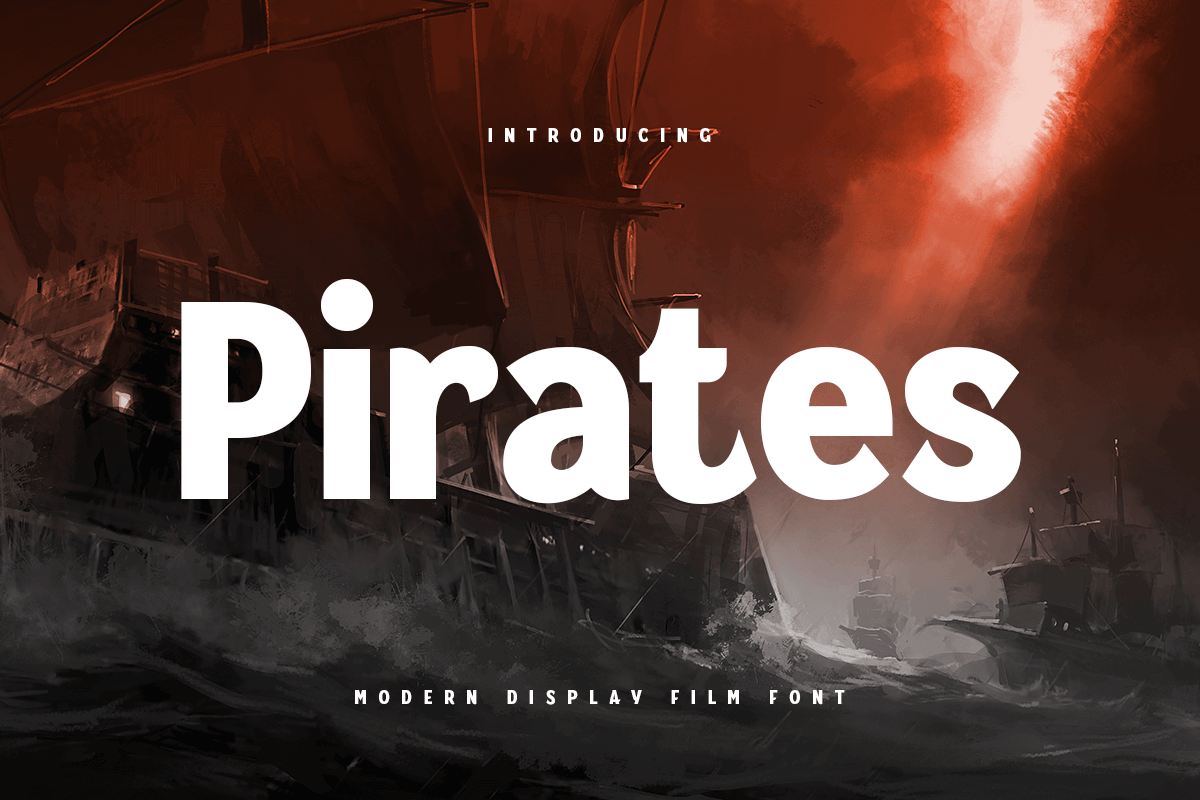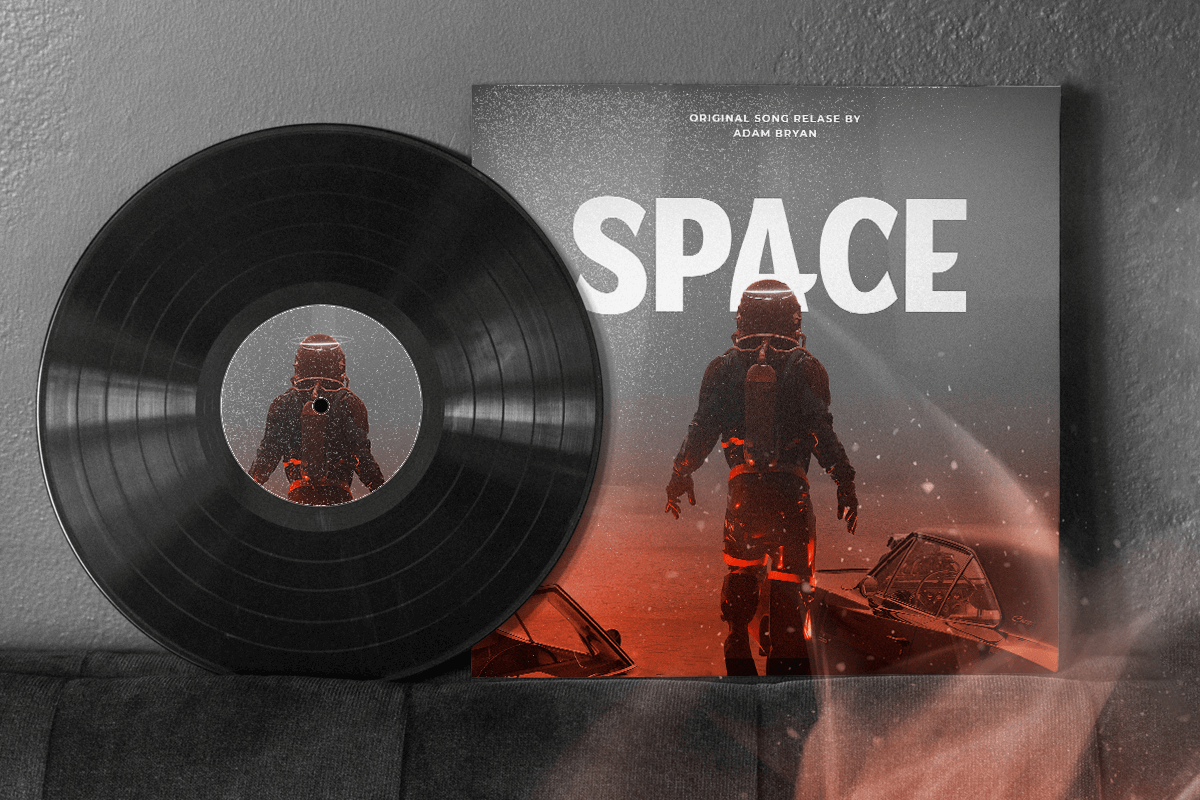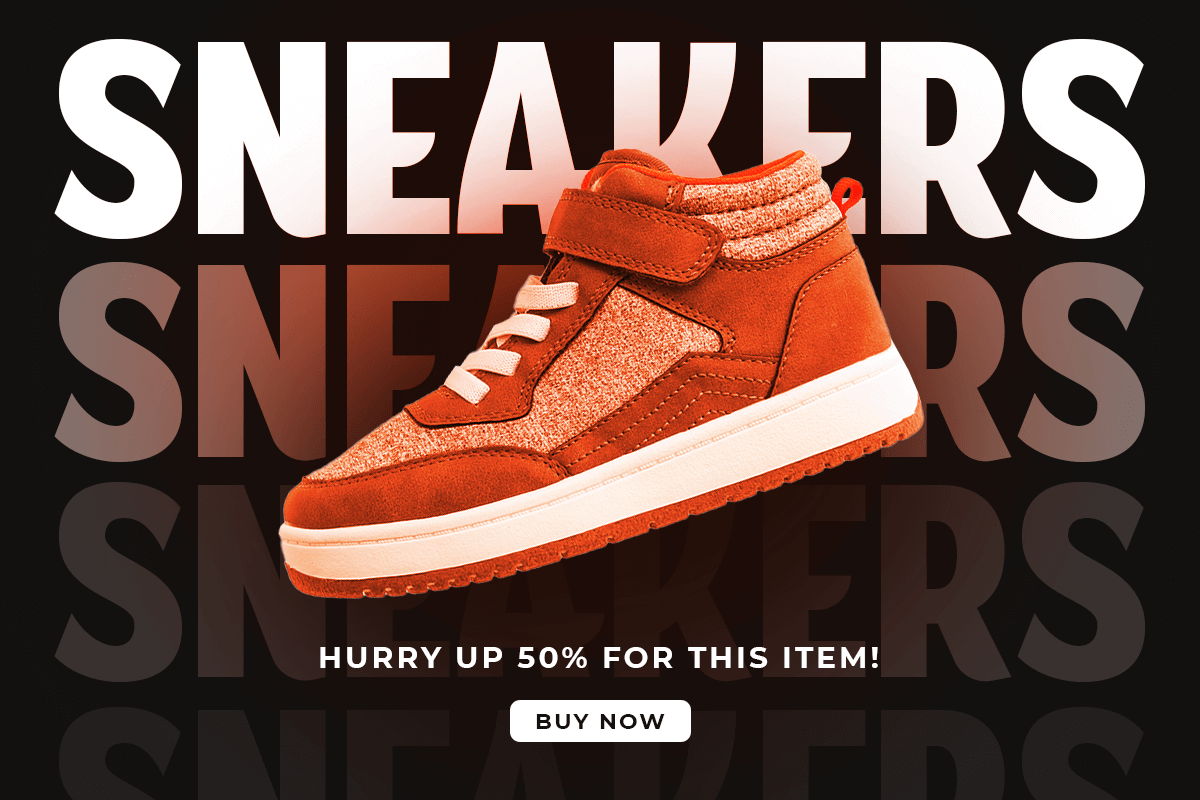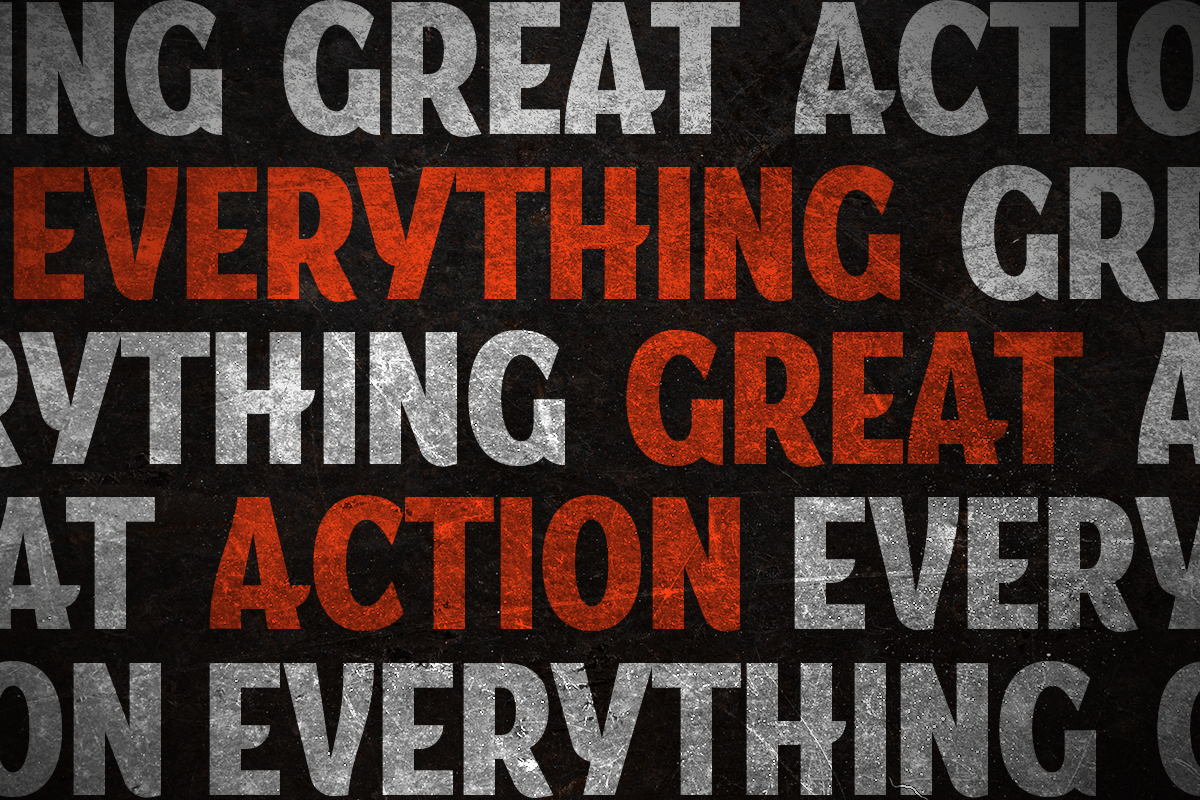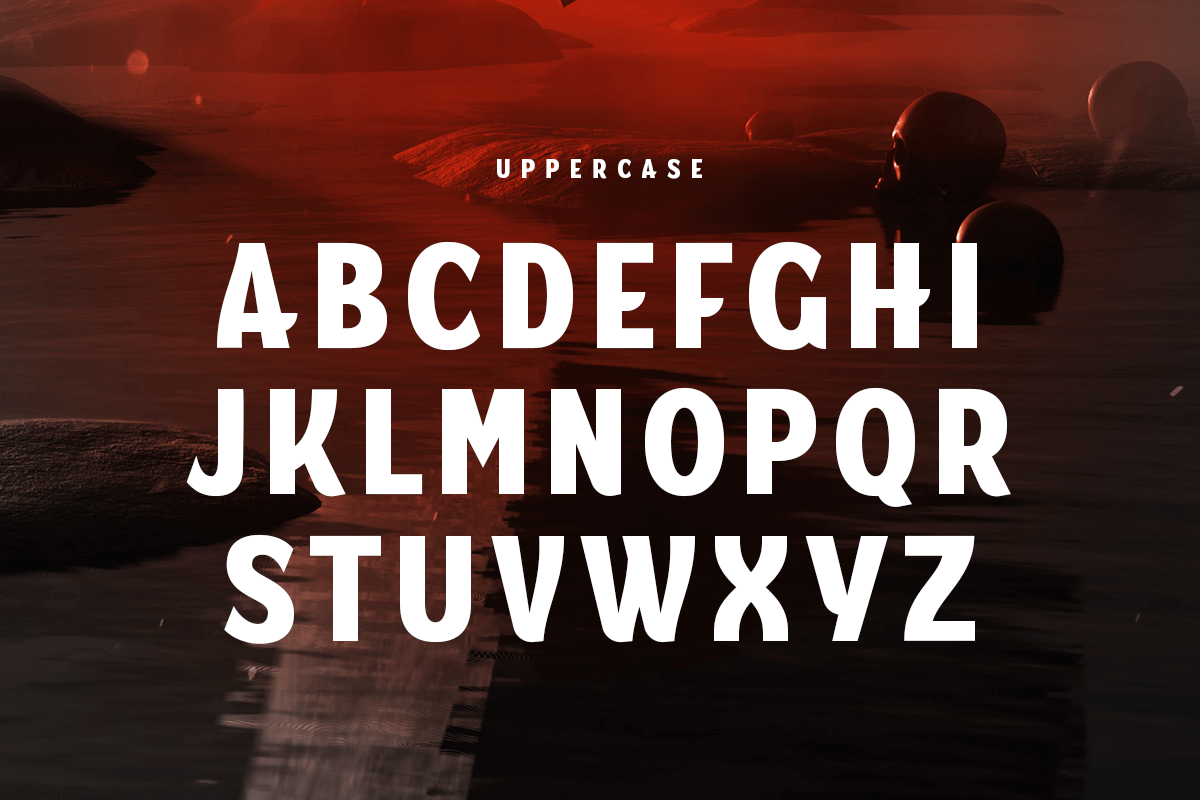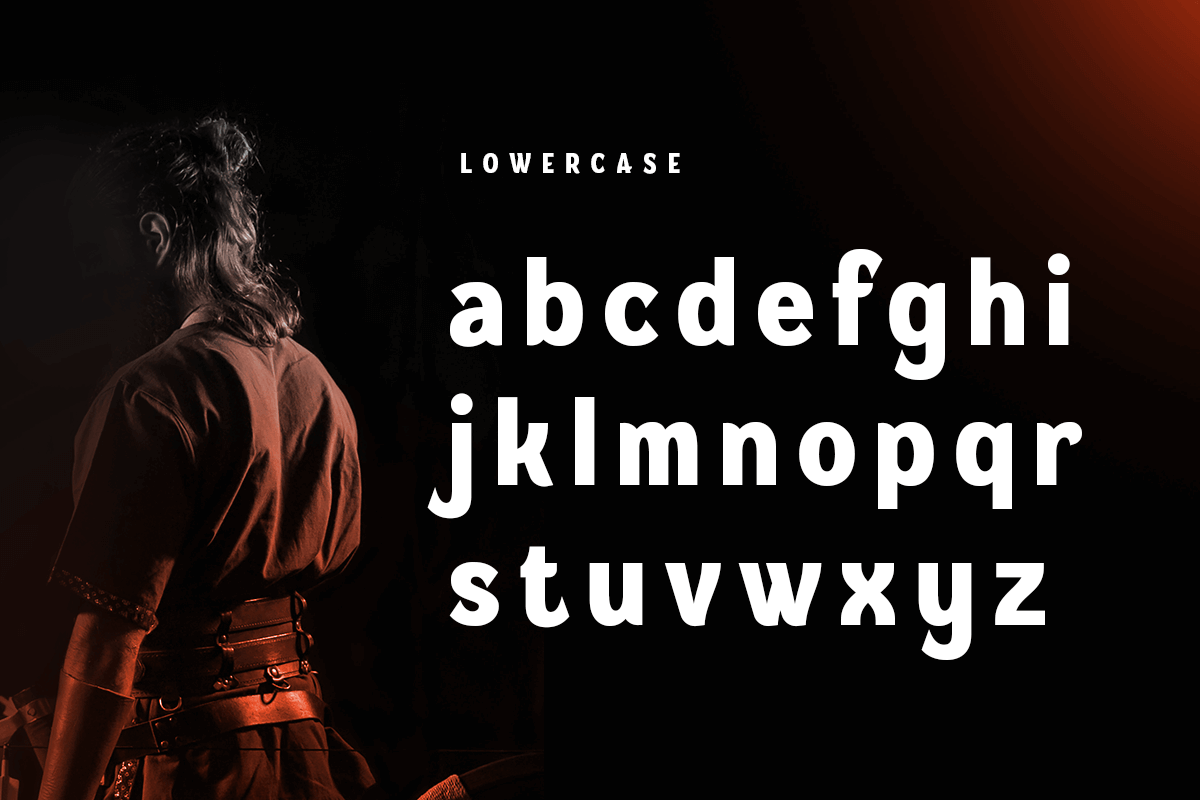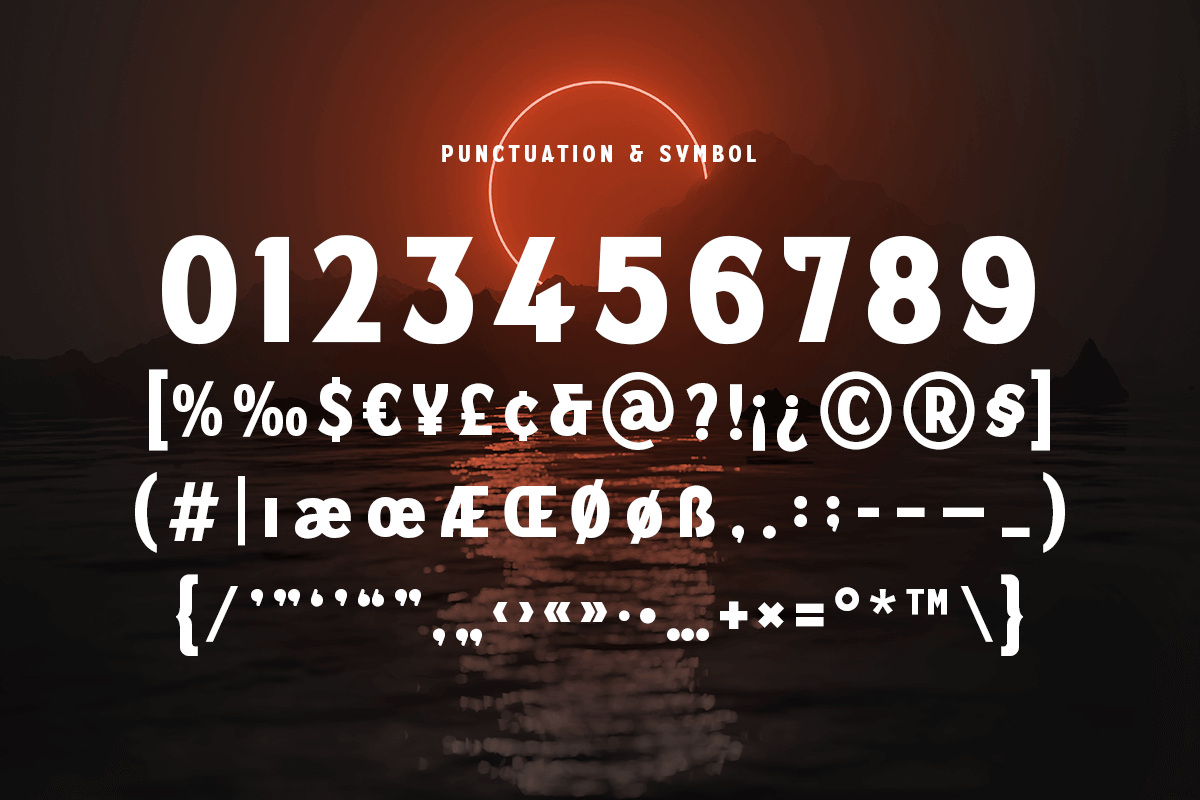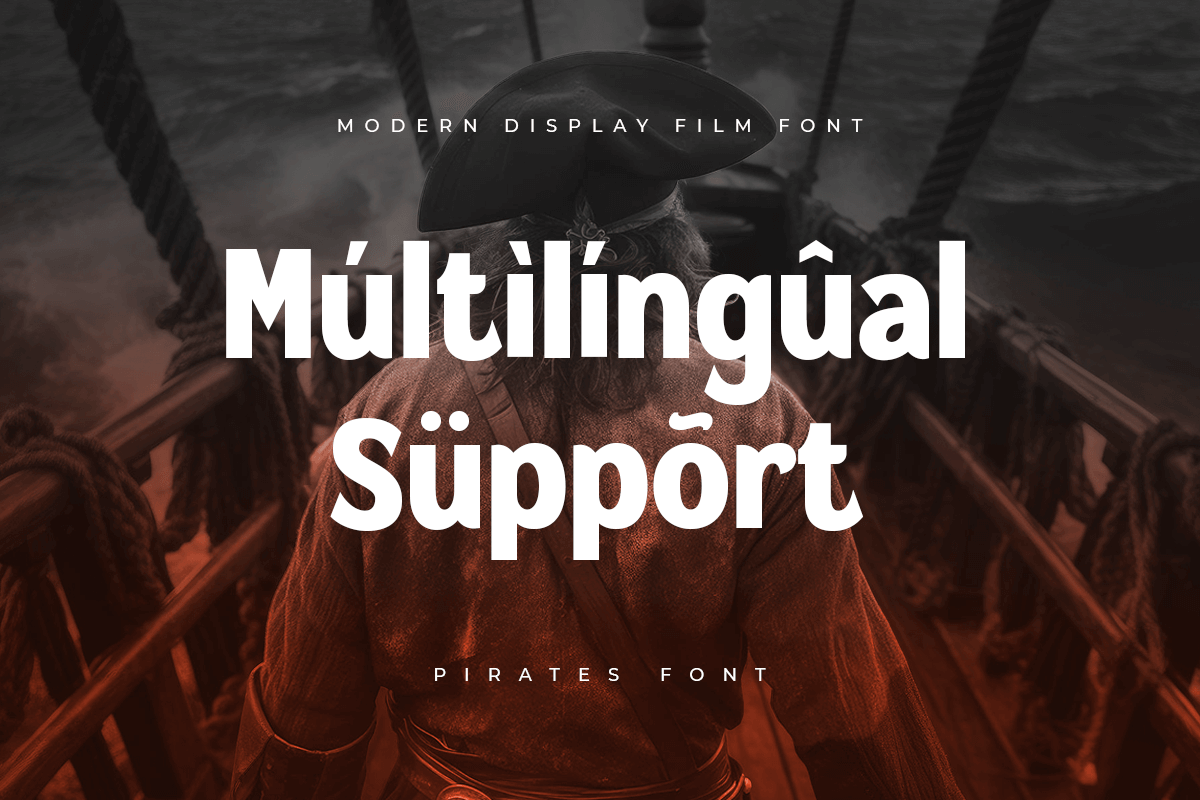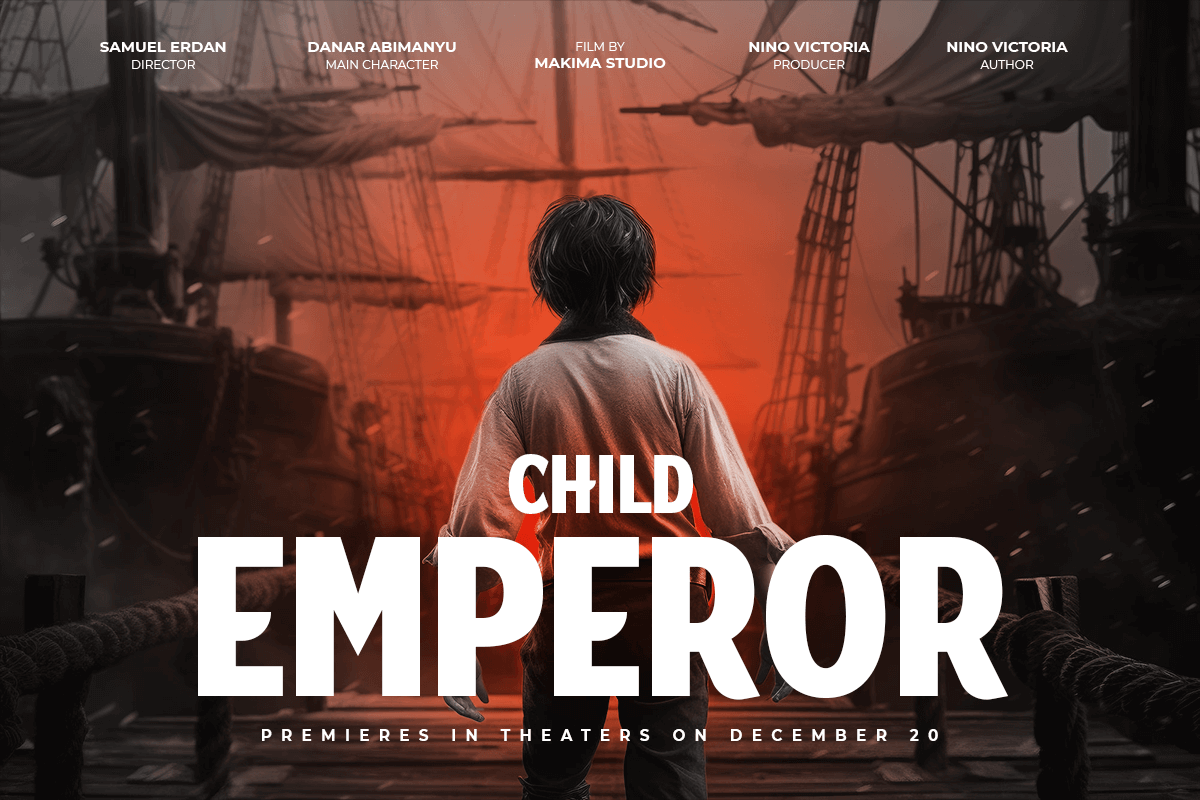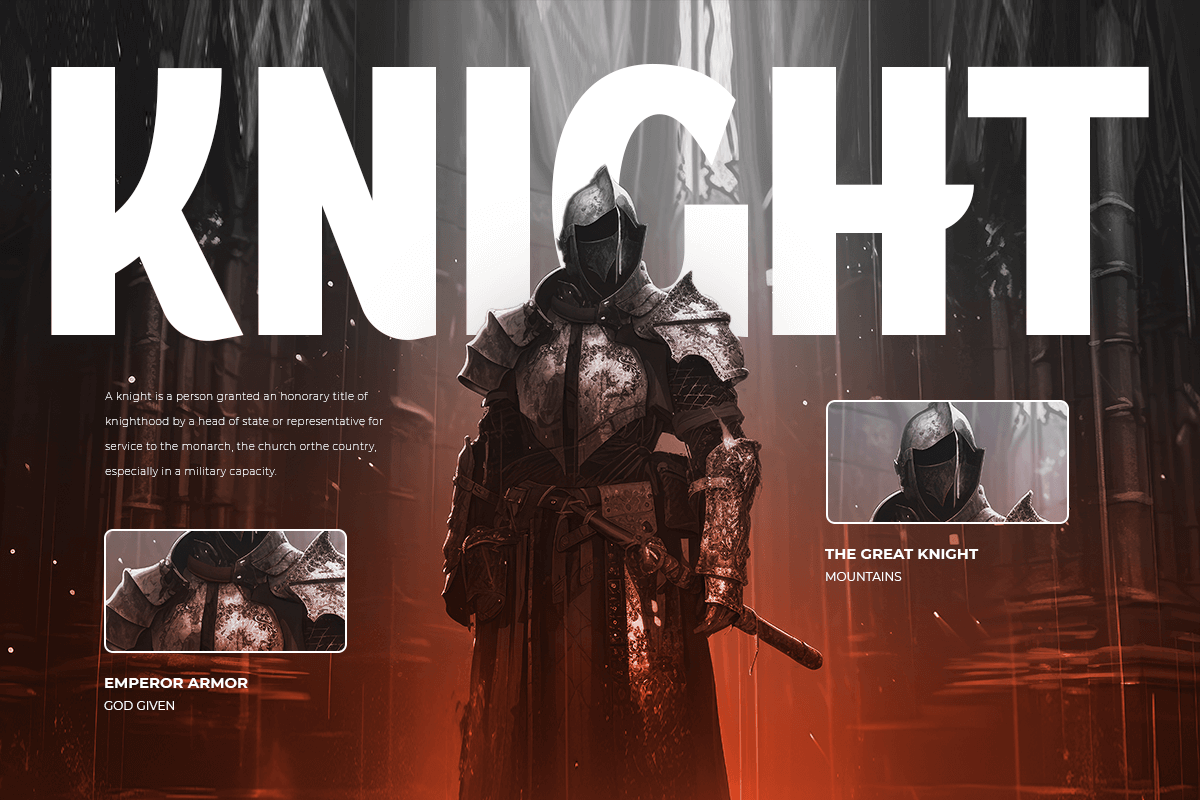
PIRATES
-Modern Display Film Font
PIRATES Modern Display Film Font is a A Modern Display Film Font are prepared special for Film, Logo, Action, Bold, and Sport design needs. It’s so perfect to add your style and headline overview for film, horror, actions, and fighting theme. And specially for this font, we crafted for bold action style and modern feels so enjoy to create any project that will show your main idea out.